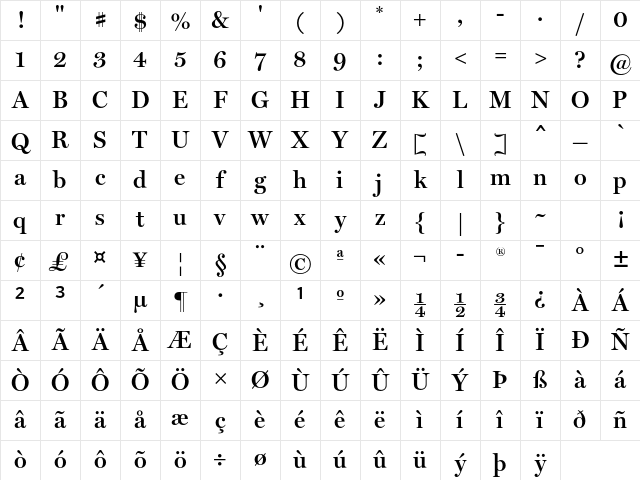
MP FBMillerDisplay Semibold Free Font
MP FBMillerDisplay Semibold
Designer: The Font Bureau, Inc.
Design Context for MP FBMillerDisplay
MP FBMillerDisplay is built around its visual character rather than neutral utility - its distinctive forms are designed to make an impression at display sizes. Its bold stroke weight gives it real presence on the page.
Font Pairing: Pair with a clean neutral sans-serif for body copy to let MP FBMillerDisplay's character lead without overwhelming the composition.
Pro Tip: Use MP FBMillerDisplay exclusively at display sizes - it was designed to be seen, not read at length. Let a neutral companion handle body copy.